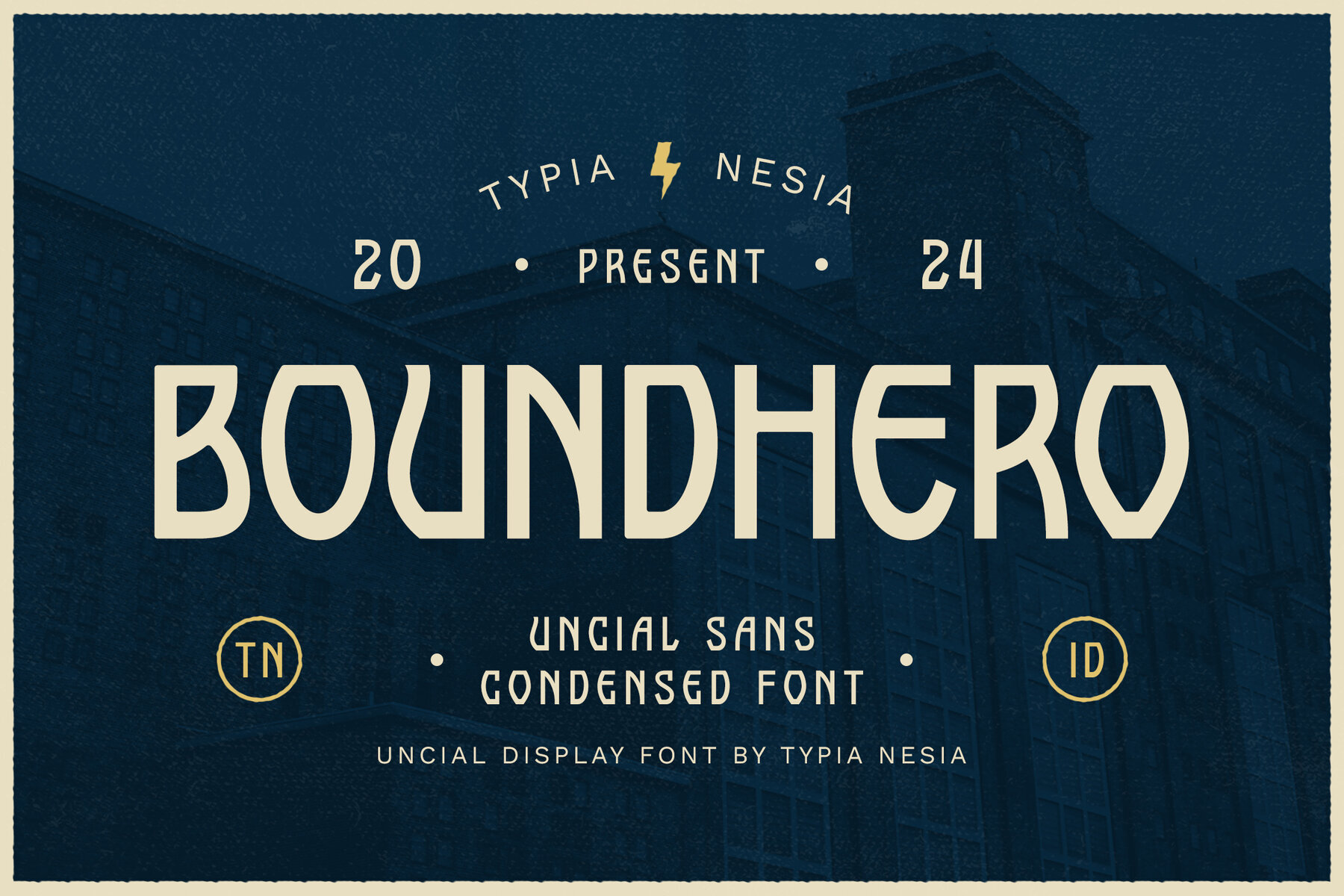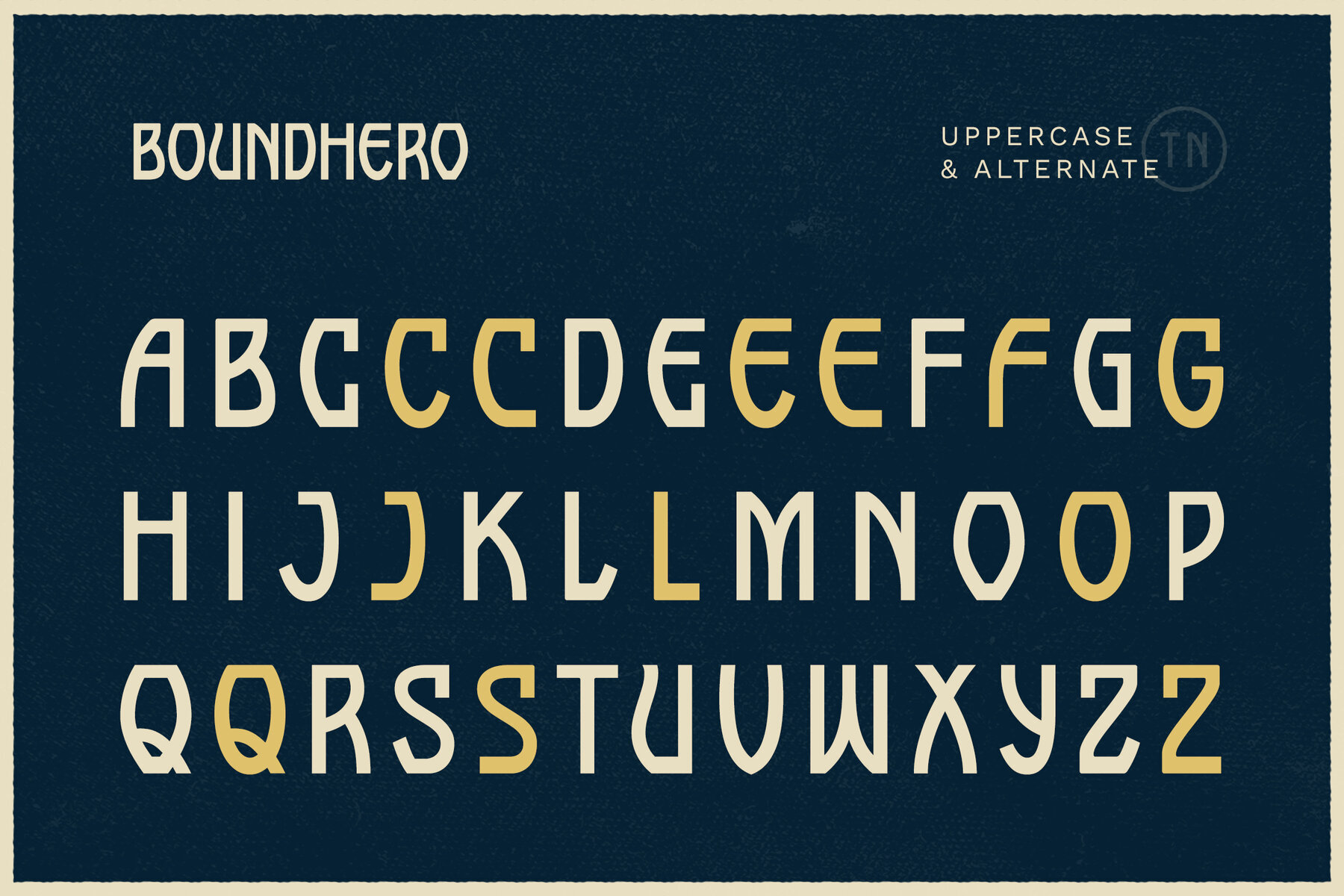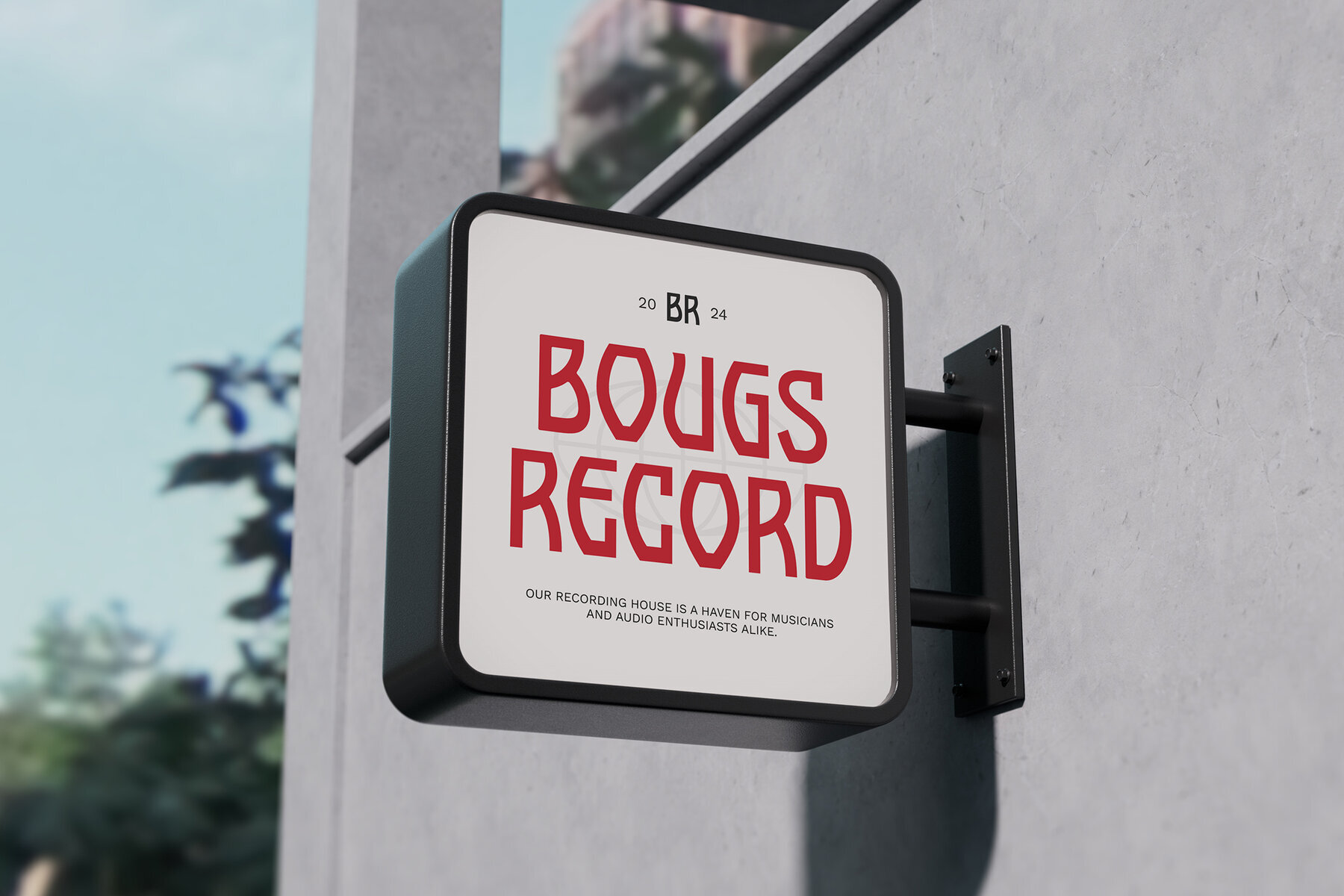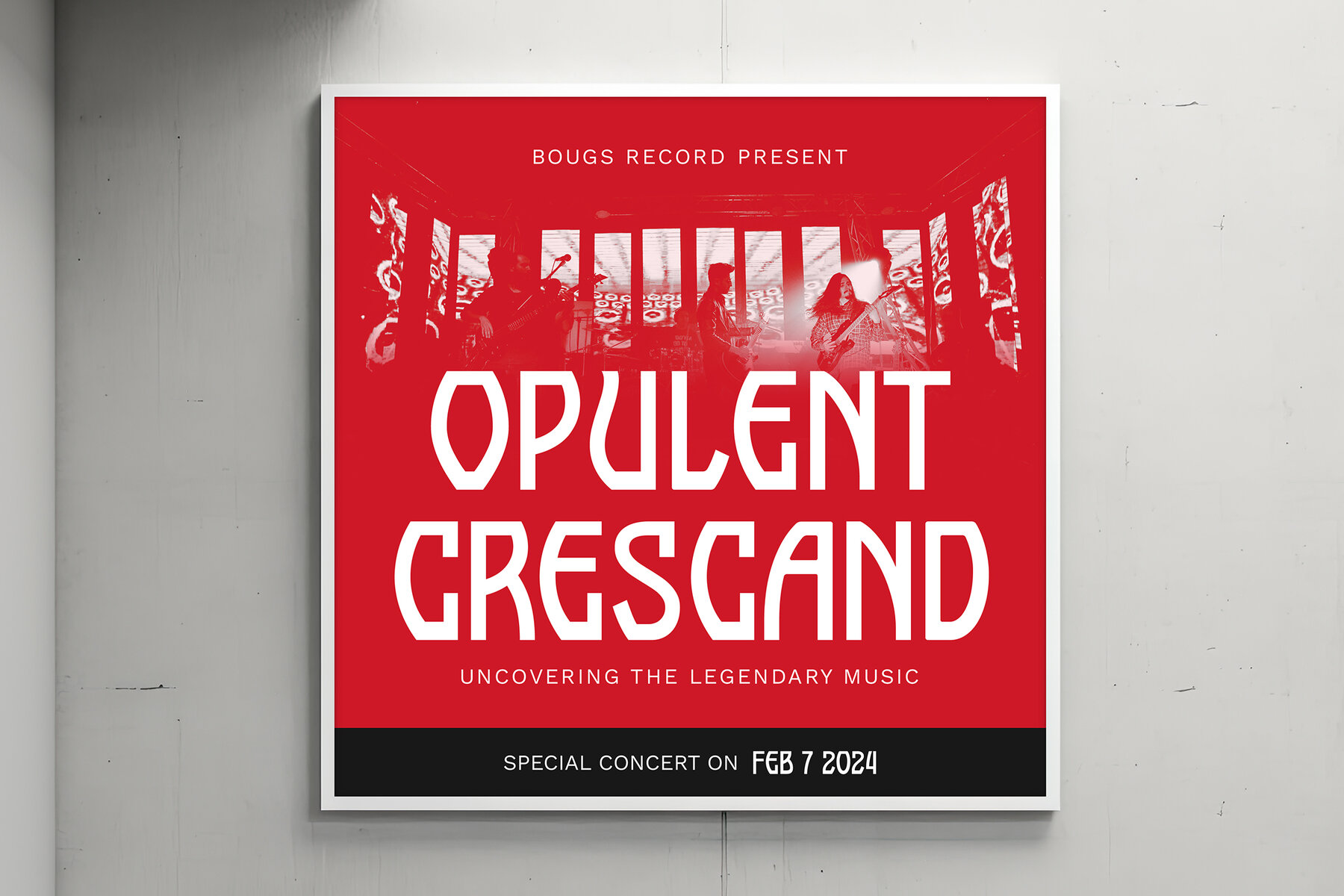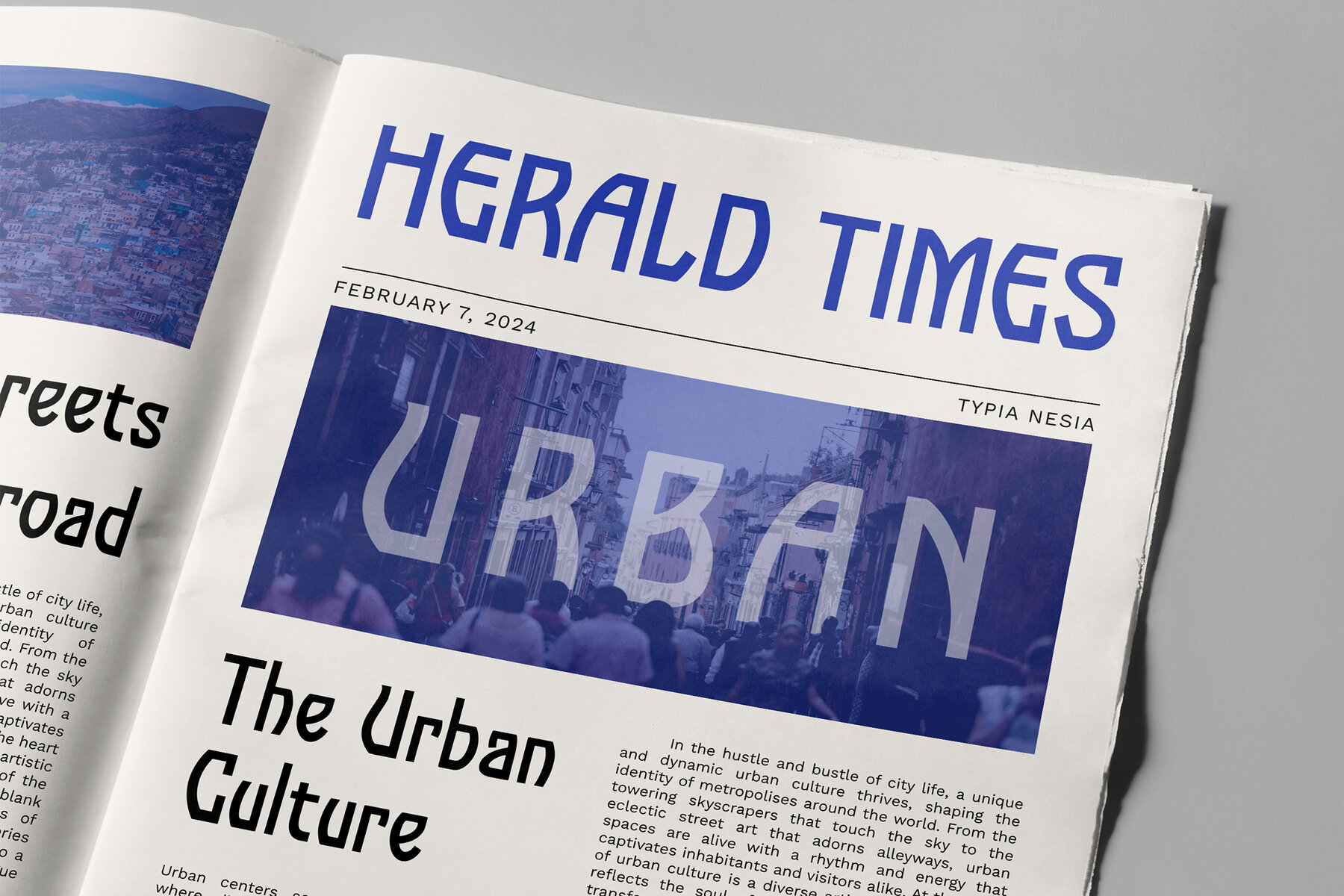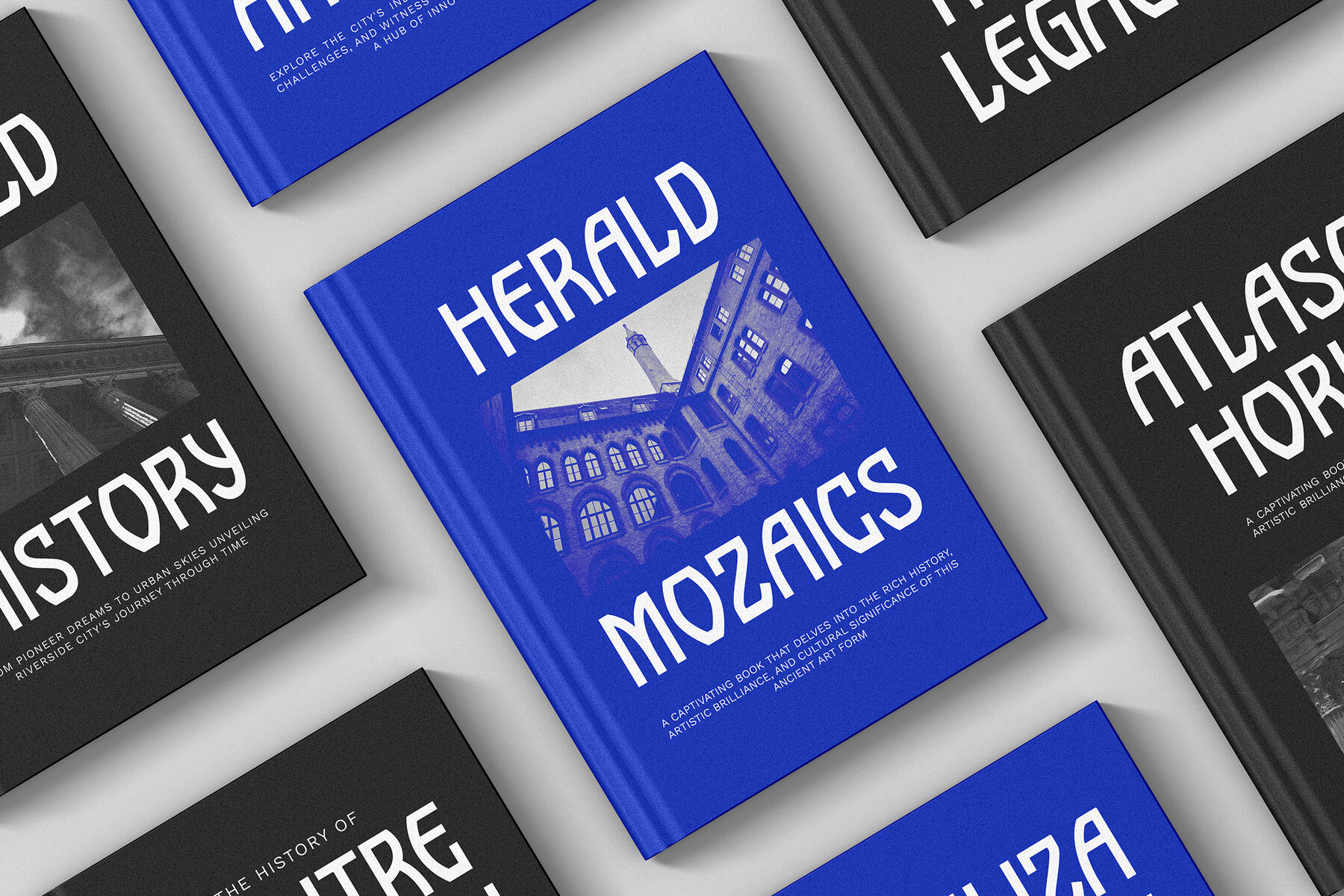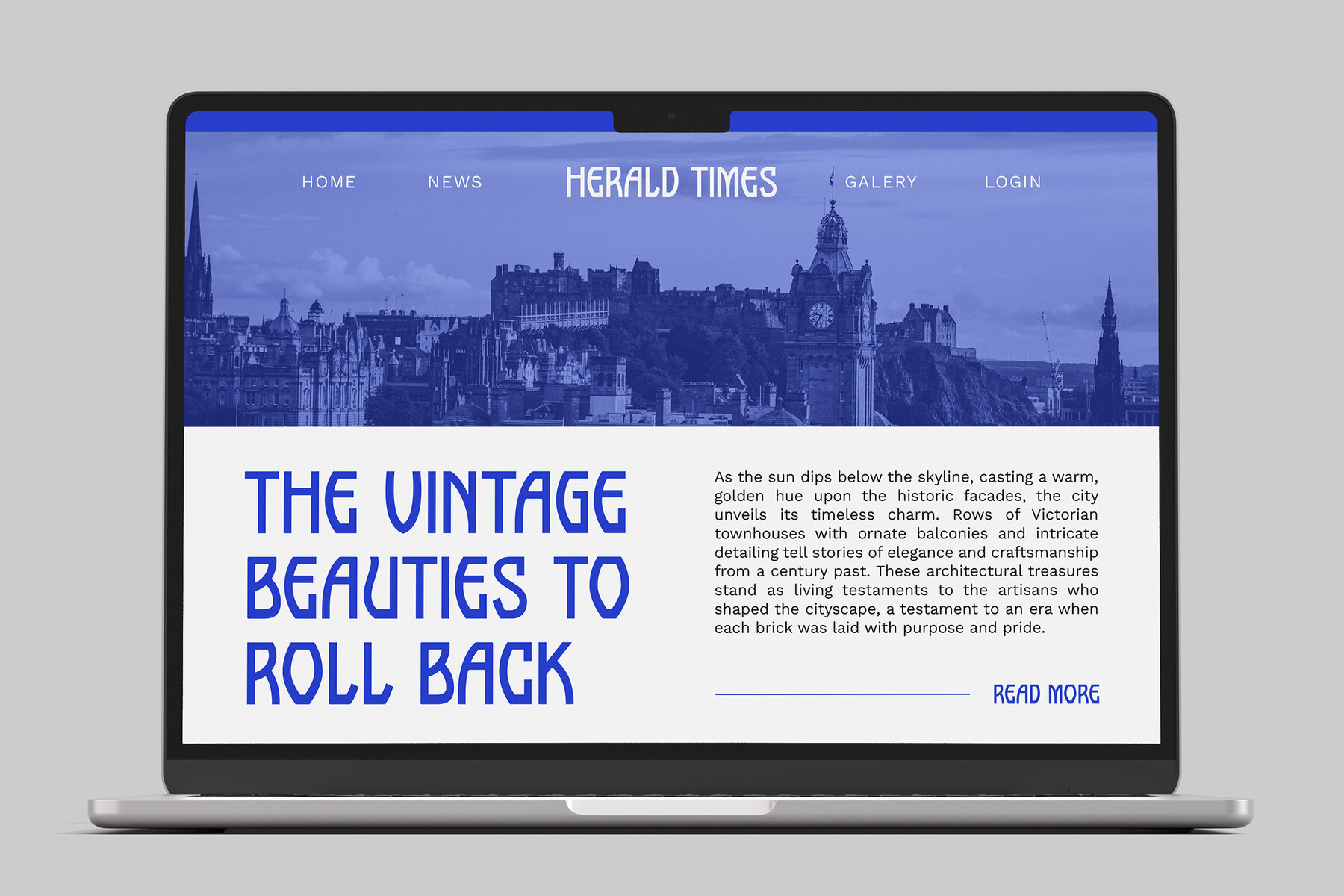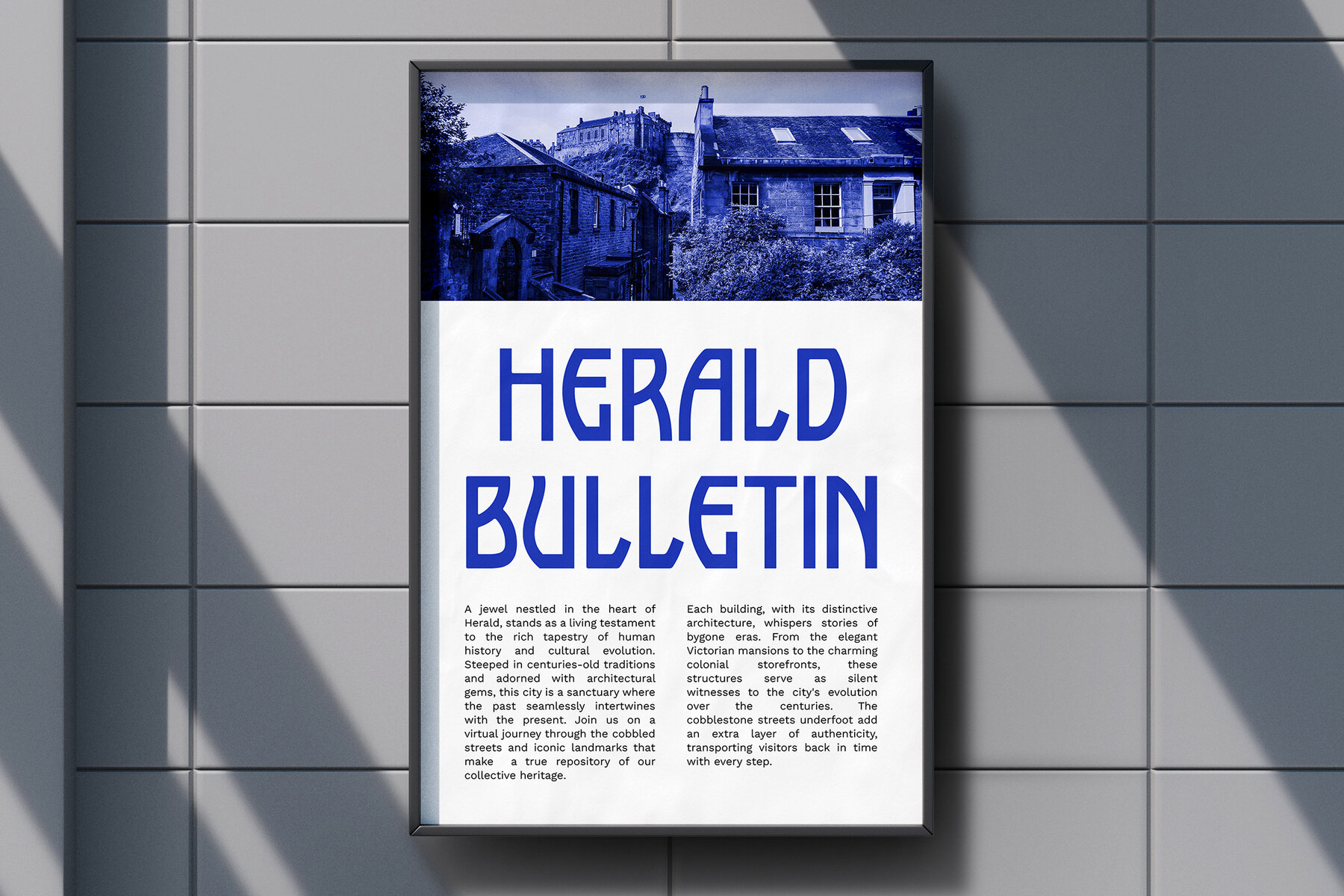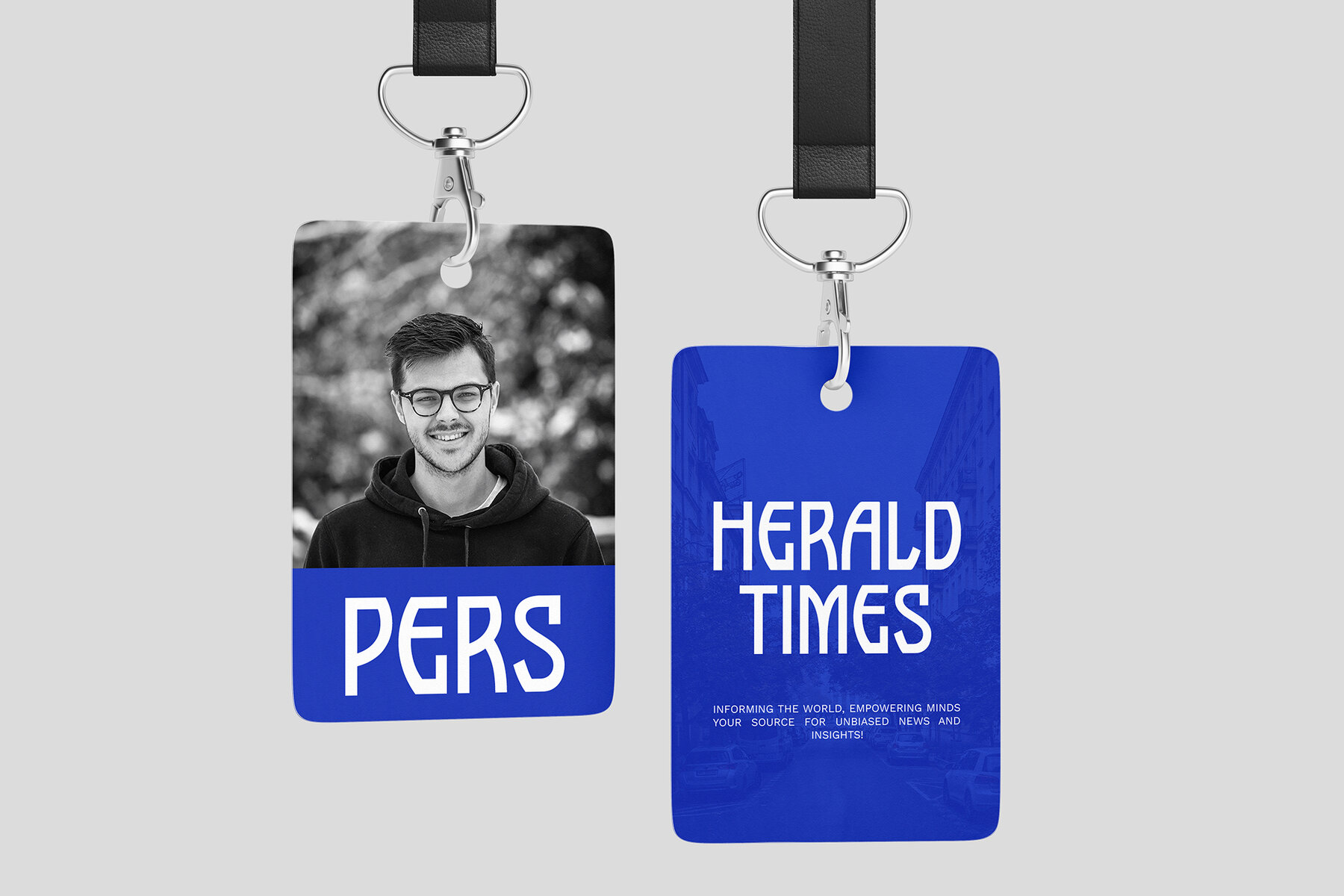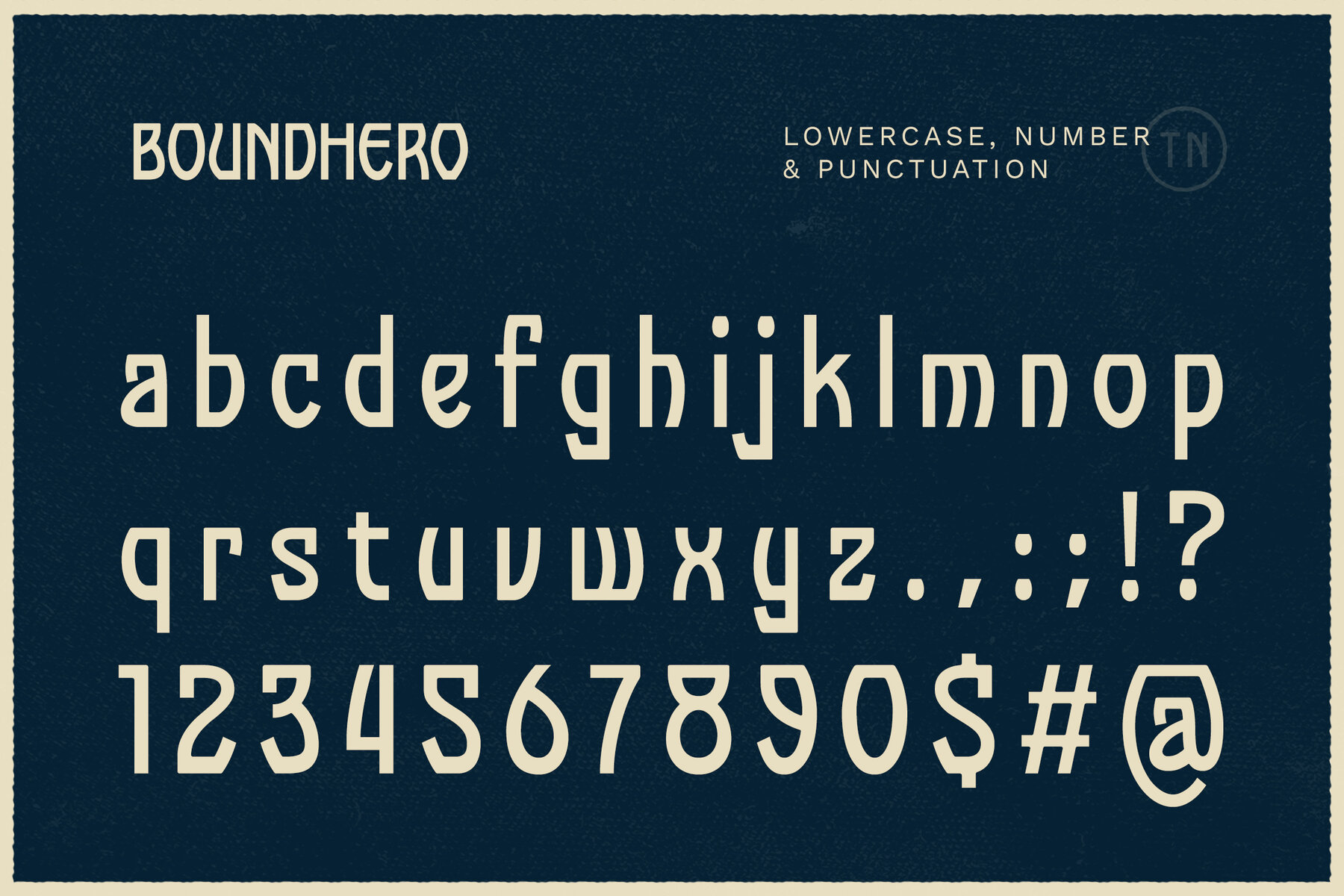
Boundhero Font
Boundhero Regular
Boundhero is an Uncial Sans Condensed font, fluiditing the ancient Uncial style with modern condensed sans-serif characteristics. Its unique blend creates a distinctive aesthetic that is both traditional and contemporary. Designed for versatile applications, Boundhero is suitable for headlines, branding, book covers, logo design, event invitations, poster design, website headers and titles, menu design, use the font in menus for restaurants, cafes, or bars, especially for establishments with a rustic or traditional ambiance. You can also apply this font for artistic projects, historical or period films, social media graphics, and any project requiring a balance between traditional charm and modern simplicity. Boundhero boasts ligatures that enhance the seamless connection between characters, adding to its aesthetic appeal. The font includes a comprehensive set of uppercase and lowercase letters, punctuation marks, numerals, alternates for added design flexibility, and multilingual support for global accessibility. Crafted with expertise, Boundhero showcases a mastery of typographic styles, blending historical elements with contemporary design for a font that stands out in various design contexts.